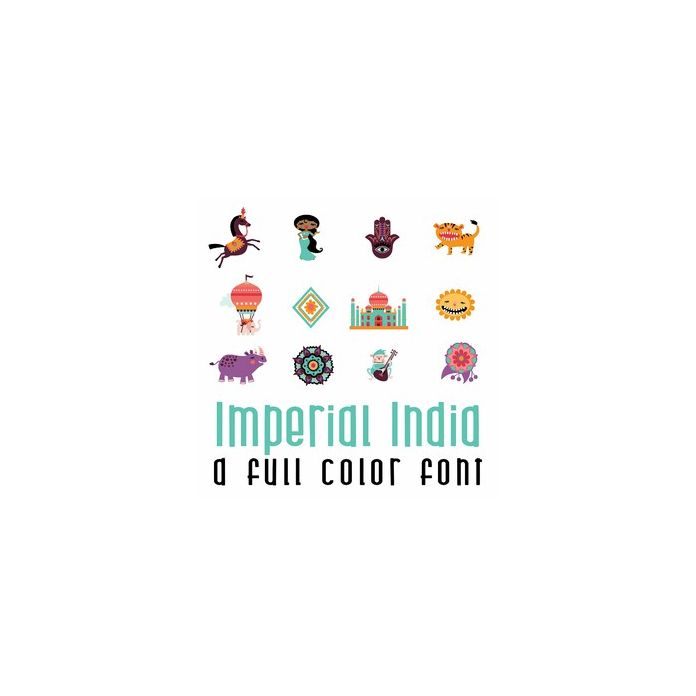
This adorable full-color doodlebat font features 26 Indian and Bohemian-styled images. Perfect for cards, crafts, gifts, decor, scrapbook pages, planner stickers, and more!